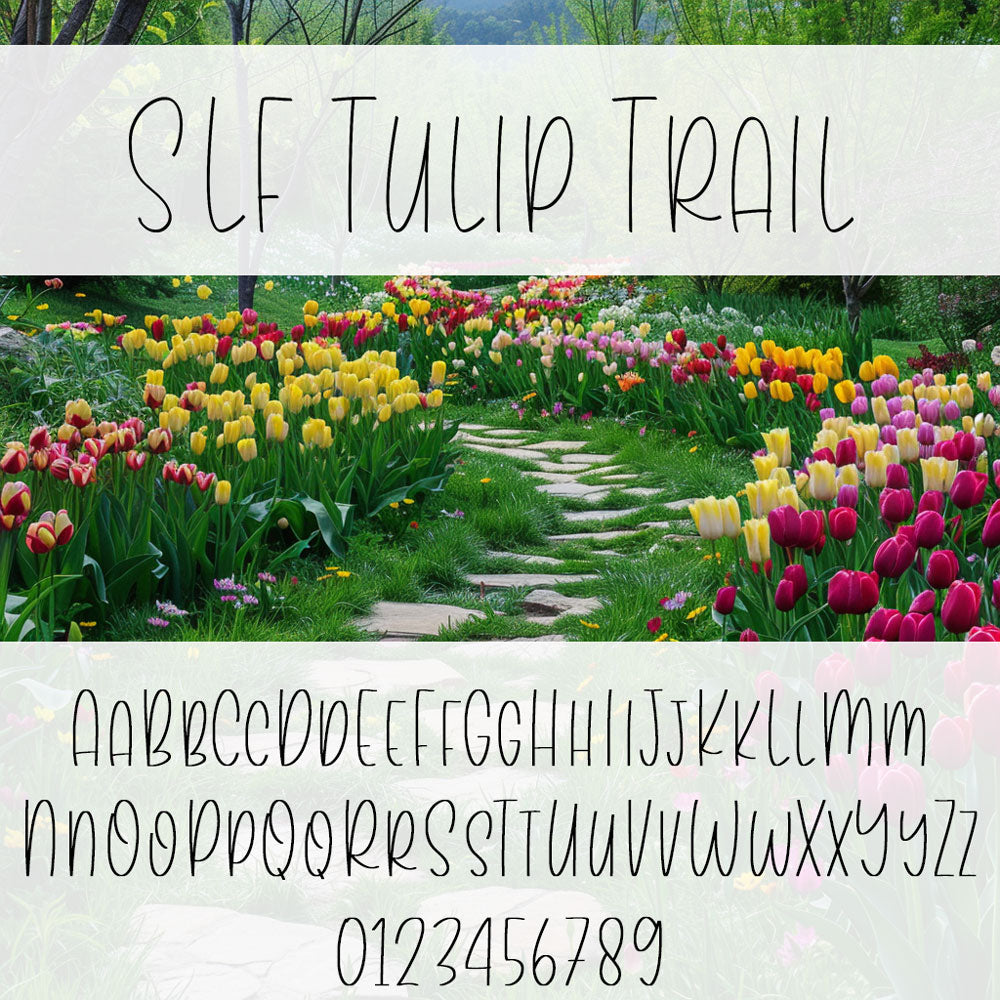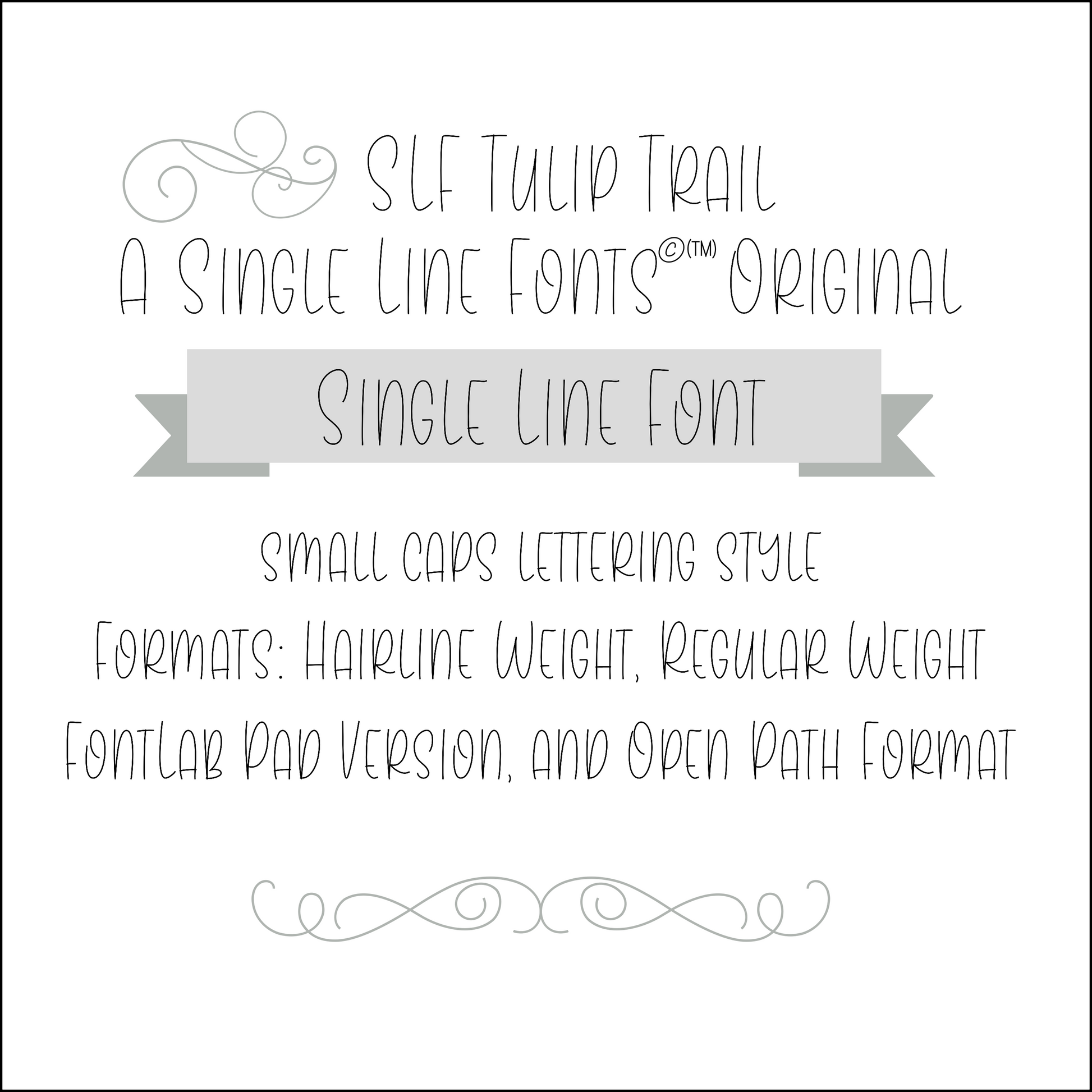
SLF Tulip Trail – Single Line Print Font for Engraving & Crafting
SLF Tulip Trail is a cheerful, clean single line print font with soft rounded forms and a friendly look. Its balanced shapes make it ideal for engraving, scoring, sketch pens, CNC routing, and creative crafting. Use it for cards, tags, labels, signage, and personalized projects that need a warm, welcoming style.
This monoline font includes a complete character set with uppercase and lowercase letters, numbers, punctuation, symbols, and accented characters for multilingual support.